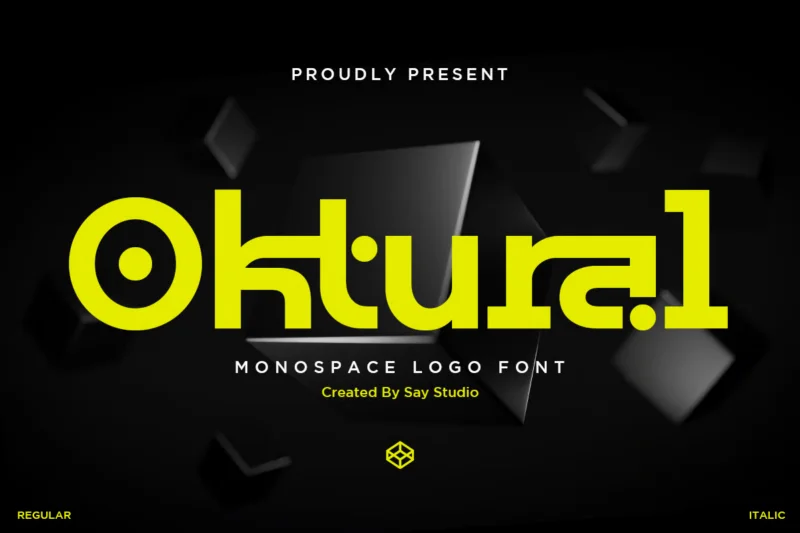
Oktural – Monospace Logo Font
Oktural is a bold and futuristic monospace logo font designed for modern branding, tech identities, esports visuals, and innovative digital projects. Its geometric curves, clean structure, and unique dot details create a powerful visual character that stands out in logos, headlines, UI design, and display typography. Perfect for creators seeking a strong, stylish, and contemporary typeface with a futuristic touch.
Stylistic Ligatures